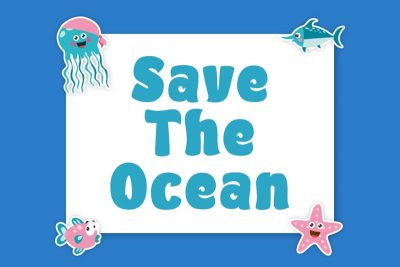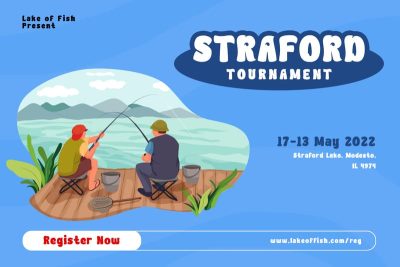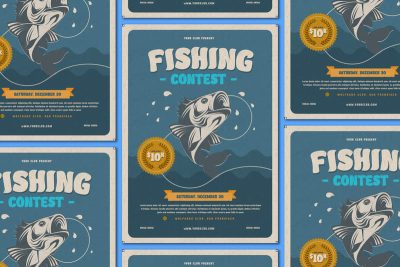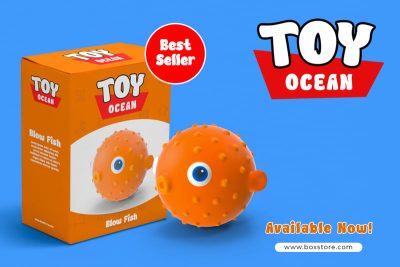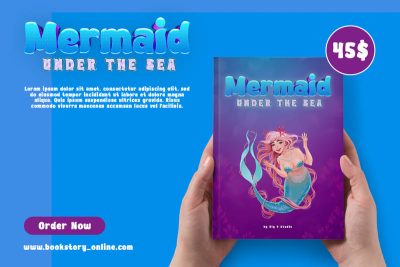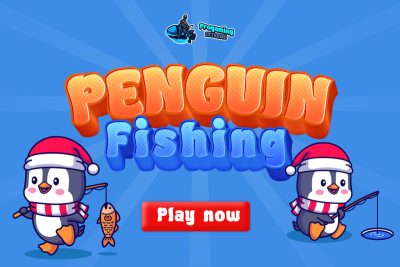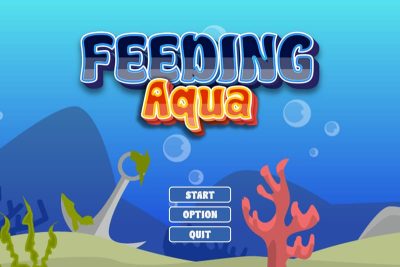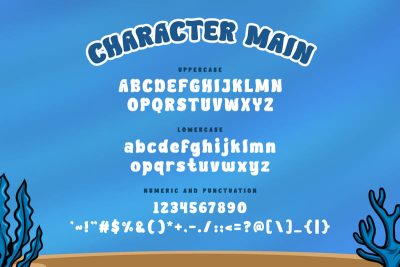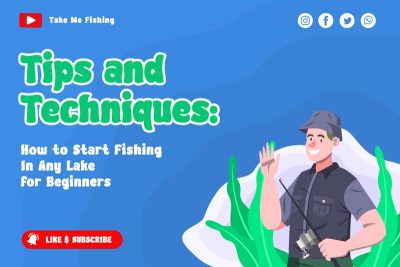
Funny font Fat Fish is a bold and lively cartoon game font. It brings fun and energy to any creative project. Moreover, its playful curves, chunky letters, and bubble-like design are inspired by the underwater world. This gives the font a unique and lighthearted personality. Additionally, the bold structure ensures readability, while its quirky design adds a touch of whimsy to your work.
Why It Stands Out
Whether youโre designing for children, gamers, or fun-themed projects, Fat Fish delivers exceptional results. Furthermore, the three-dimensional shadow effect and rounded edges evoke an underwater vibe. As a result, it stands out across both digital and print media. Its dynamic style instantly captures attention and encourages viewers to explore a world of creativity. The playful nature of the font makes it suitable for any project that demands a vibrant and engaging aesthetic. Thus, it is both versatile and visually appealing for various use cases.
Funny Font Fat Fish Perfect For
Fat Fish is ideal for a variety of audiences and creative projects. Specifically, it is well-suited for those targeting children and gamers. Here are some ideas where it works best:
- Game Design: For example, you can create game titles, splash screens, and user interfaces with a font full of playfulness. Its bold and cartoonish style enhances the visual appeal of gaming projects.
- Childrenโs Books and Storytelling: Similarly, use it to bring underwater or ocean-themed stories to life with engaging typography. The fontโs lively look resonates well with kids, making the stories even more captivating.
- Educational Materials: In addition, enhance worksheets, posters, or activity books for kids by adding bold and cheerful touches. This makes learning more engaging and visually exciting for young audiences.
- Event Invitations and Decorations: Design fun invitations for aquatic or playful-themed parties, creating a lively and exciting mood. For example, itโs perfect for birthday parties, school events, or family gatherings with fun themes.
- Logo Design: Furthermore, it is perfect for brands catering to kids or gamers, such as toy companies, game developers, or entertainment-focused businesses. The fontโs distinctive style helps brands stand out and appeal to younger demographics.
- YouTube Thumbnails and Digital Content: Likewise, add charm to thumbnails, banners, or social media posts with its cartoonish and eye-catching style. This can help boost engagement and attract viewers with a playful aesthetic.
- Merchandise and Packaging: Finally, use it for products aimed at children or gamers, such as T-shirts, mugs, or game-related items. Its bold, fun vibe makes it highly suitable for kid-centric products.
Conclusion
Overall, funny font Fat Fish is a fantastic choice for designers, illustrators, game developers, and educators. Thanks to its cheerful personality and versatility, this font is perfect for engaging, kid-friendly designs. Whether you need a lively or adventurous touch, this font brings your creative ideas to life in a playful and captivating way.